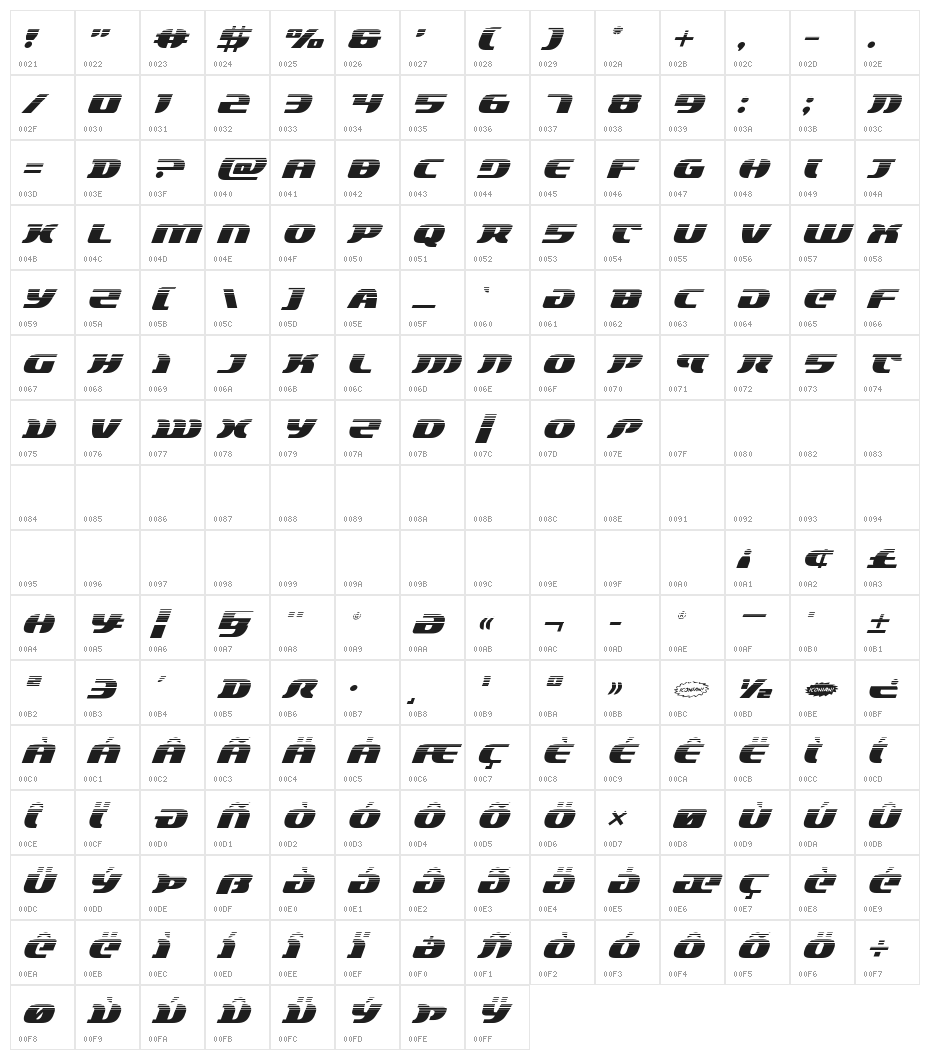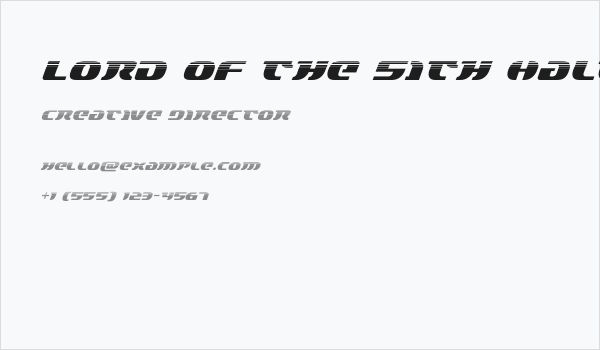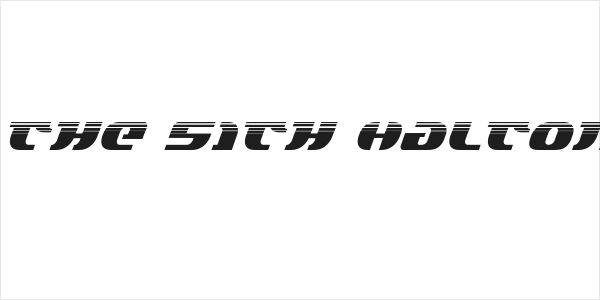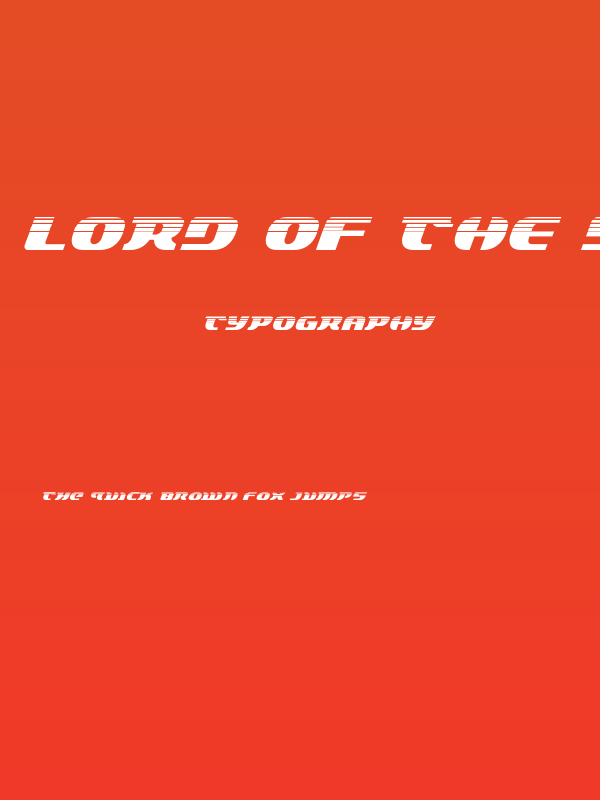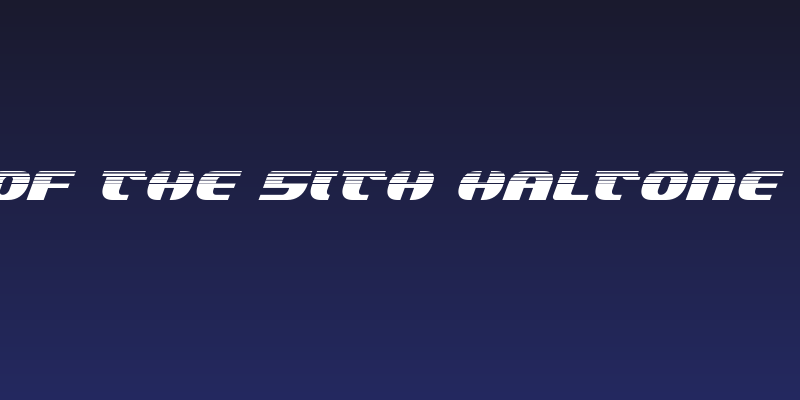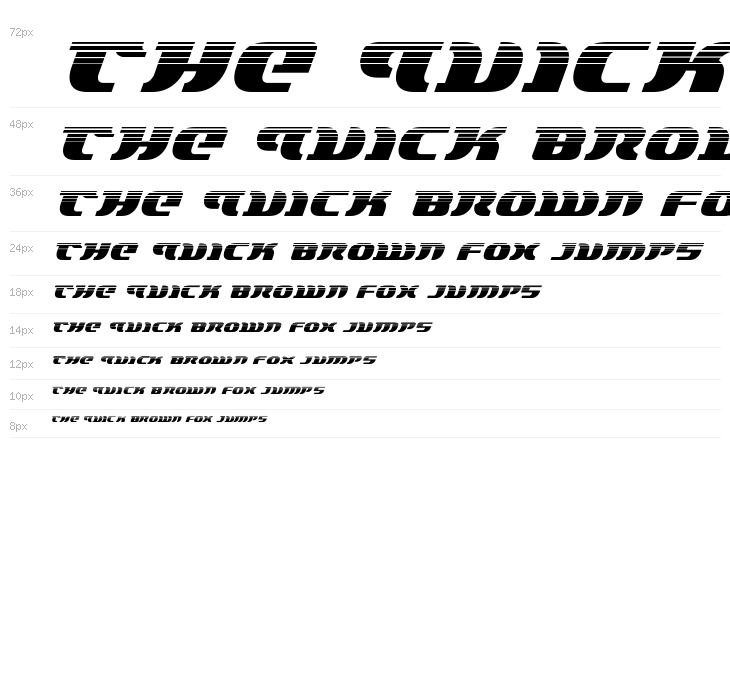
Lord of the Sith Haltone Italic Font
Lord of the Sith Haltone Italic Description
This font features a bold and dynamic design with a futuristic flair. The characters are italicized, giving them a sense of motion and speed. The strokes are thick and solid, with a unique pattern of horizontal lines cutting through each letter, adding a distinctive texture. The overall appearance is sleek and modern, making it suitable for projects that require a strong visual impact. The numbers and special characters maintain the same bold style, ensuring consistency across all text elements.
| Proposed Projects | Ideal for sci-fi themed posters, video game titles, and branding for tech companies. |